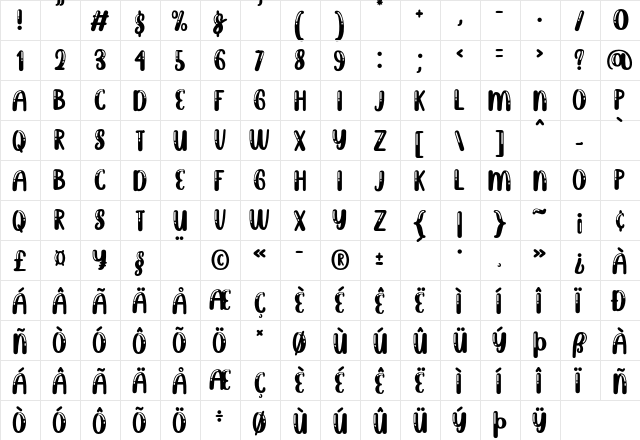
Brighly Crush Shine
Design Context for Brighly Crush Typeface
Brighly Crush is a composed and adaptable typeface that performs quietly and consistently across a wide range of design contexts.
Pro Tip: Use Brighly Crush in both headline and body roles to test its range before committing to a single application.